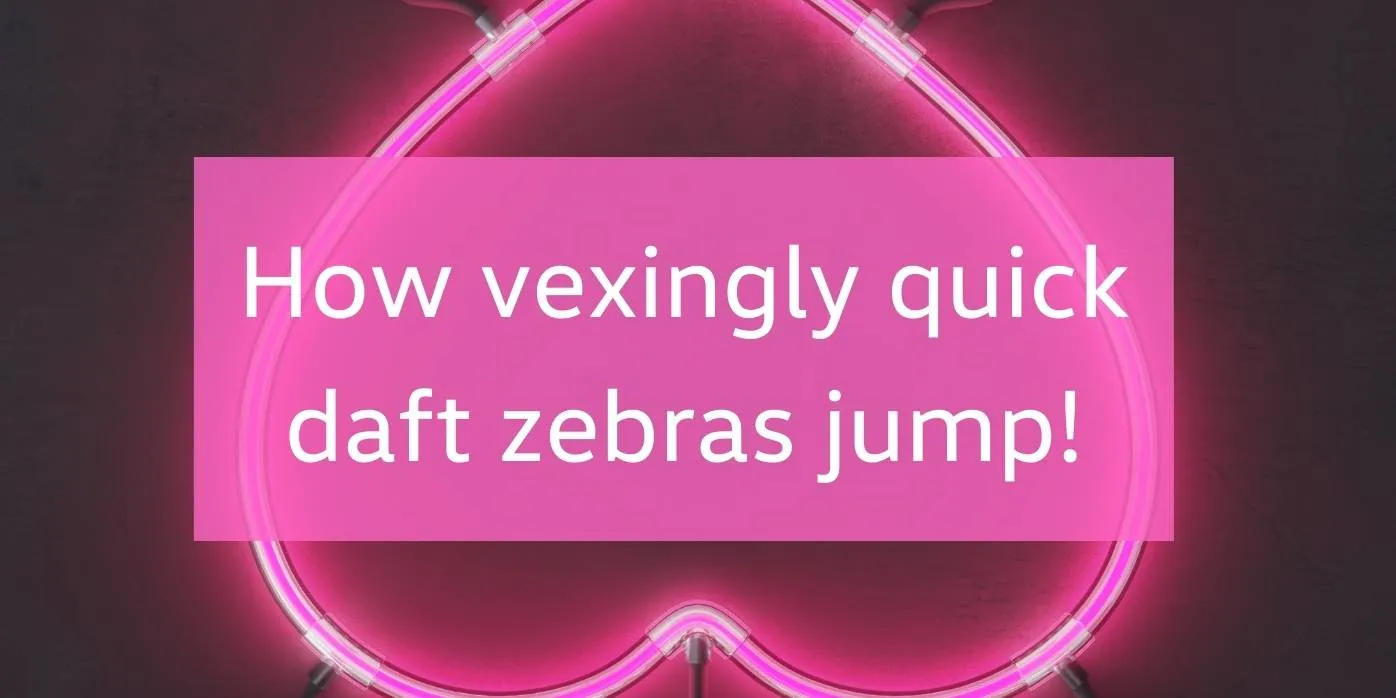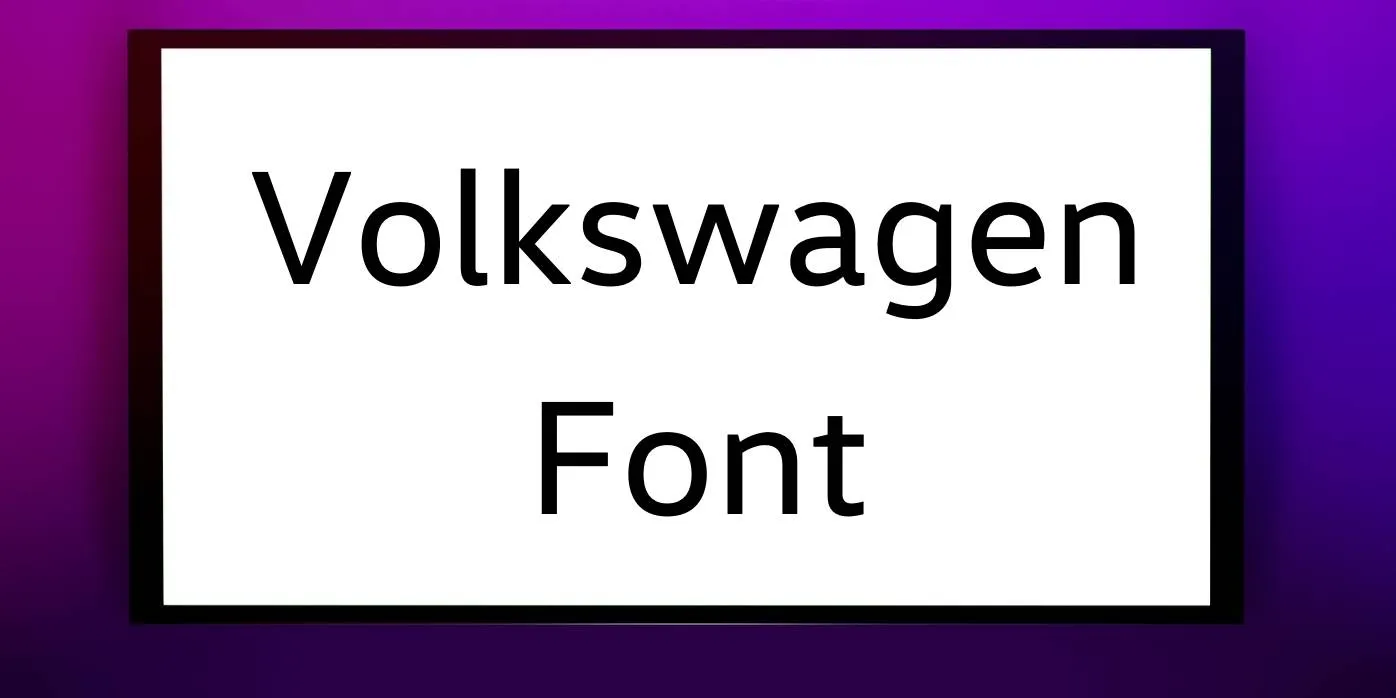
Volkswagon Font
We are going to present a new famous typeface that is known by the name Volkswagon Font. It belongs to the Sans-Serif typeface and was designed by Erik Spiekermann. This cozy typeface includes 15 unique and classic weights. It is best for CSS and SVG.
This typeface was created in 1937 and it is used by the German car manufacturer Volkswagen. It is a very simple and minimalist typeface, but also very elegant. It has been designed to be easy to read, both on paper and on screens. Lulo Clean Font is alternative to this stunning typeface.
One of the great advantages of this typeface is that it can be used in a very wide range of applications, from corporate design to web design. It’s perfect for any project that needs a clean and professional look. If you want to use this font in your projects, you can download it for free from the download button. Its generator tool is best for different designs.